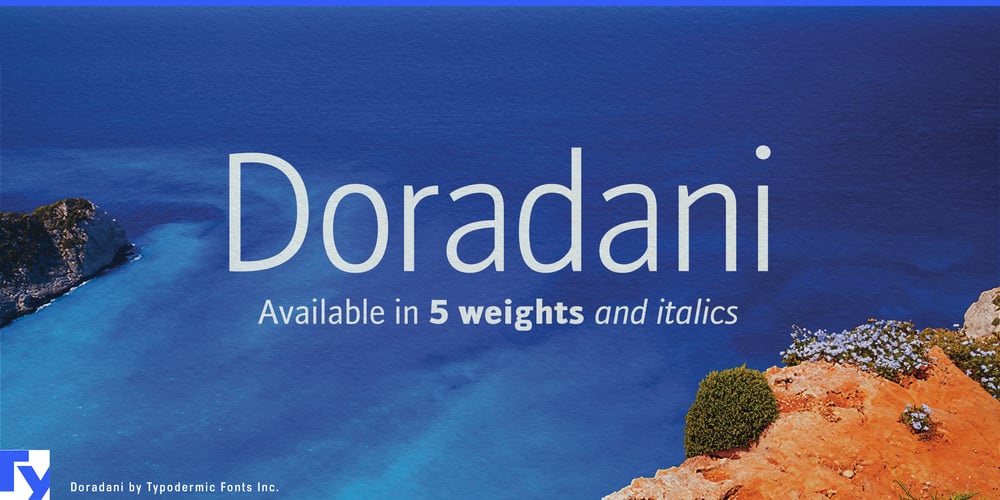
Doradani Font Family was designed by Ray Larabie and published by Typodermic. Doradani contains 14 styles and family package options. Doradani: The typeface that dances between centuries. This Typodermic Fonts creation isn’t just a revival—it’s a renaissance, breathing new life into the timeless proportions of Franklin Gothic while embracing the openness of modern design.Crafted with reverence for Morris Fuller Benton’s 1903 masterpiece, Doradani strikes a delicate balance between heritage and innovation. Each glyph is a testament to typographic evolution, where classic structure meets contemporary flair in the form of open apertures and refined details. With five meticulously crafted weights and their italic counterparts, Doradani offers a full spectrum of expressive possibilities. From whisper-thin headlines to boldface statements, each variation maintains the integrity of the design while adapting to your creative vision.Imagine your brand story told in Doradani, each word carrying the gravitas of typographic history yet speaking directly to modern sensibilities. Picture editorial layouts where headlines command attention with bold authority, while body text invites intimate reading with its lighter weights. Envision logos that resonate with both timelessness and cutting-edge style. Doradani’s linguistic fluency spans a vast array of Latin-based European writing systems, ensuring your message retains its sophisticated character from the bustling streets of Berlin to the sun-drenched plazas of Madrid.Ready to bridge typographic eras? Embrace Doradani and watch your designs transcend time. In a world where fonts often shout for attention, Doradani stands apart—a typeface that commands respect through its harmonious blend of past and present.